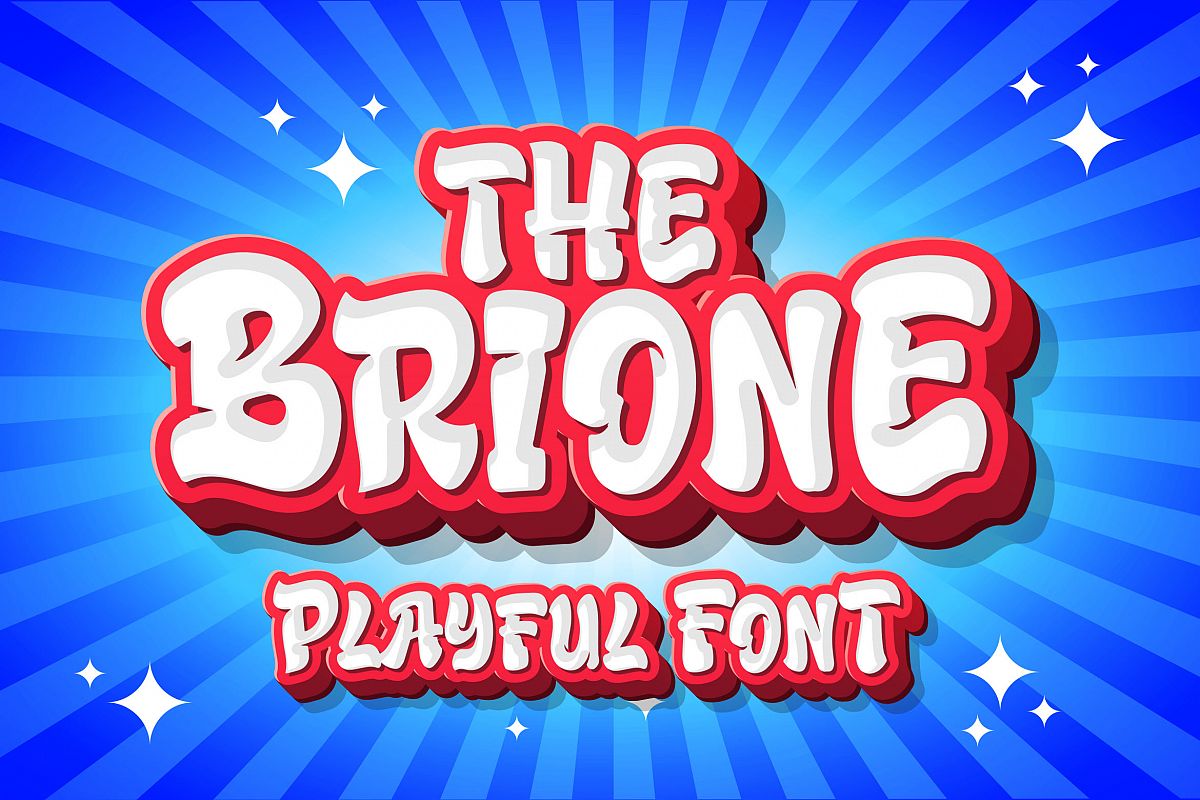
Brione - Playful Font
Introducing of our new product the name is Brione Playful Font. Brione inspired by Kids style with a fun theme very good for game, kids poster, flyer, childrenbook, cartoon, comic etc